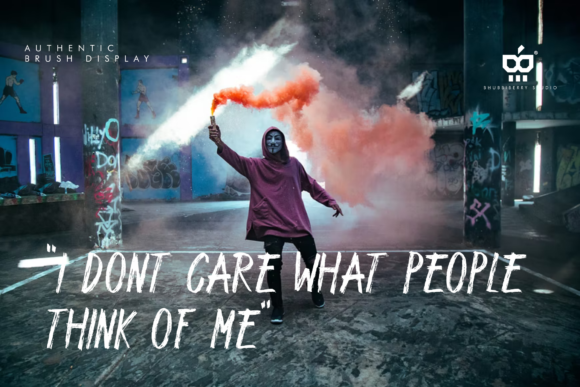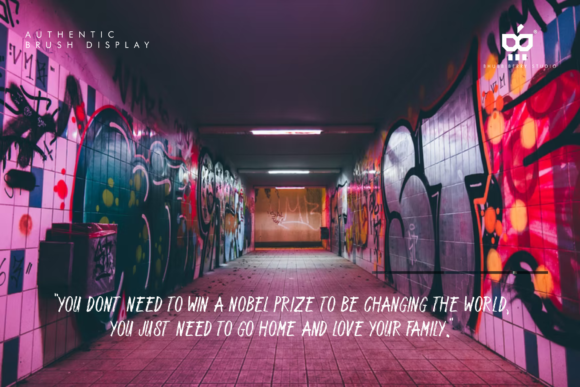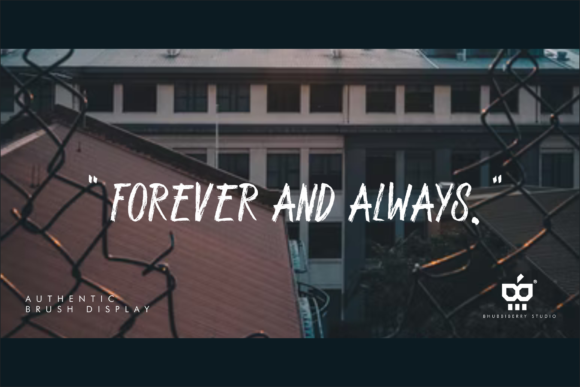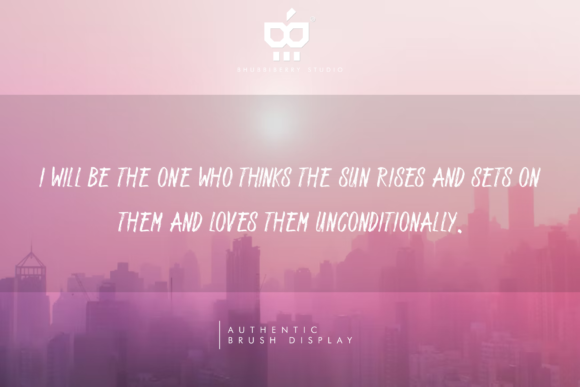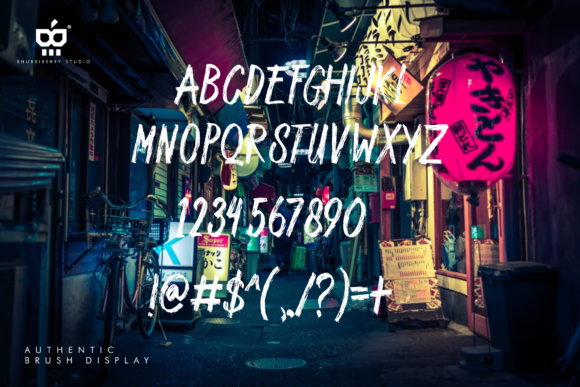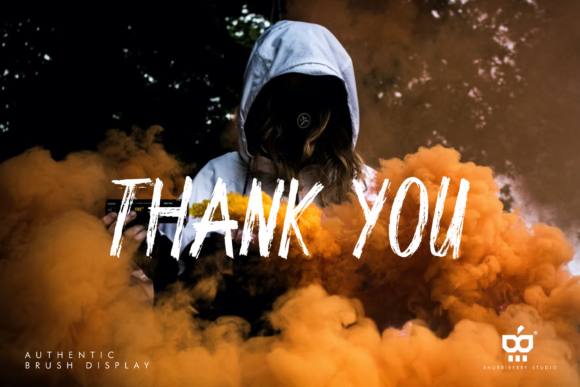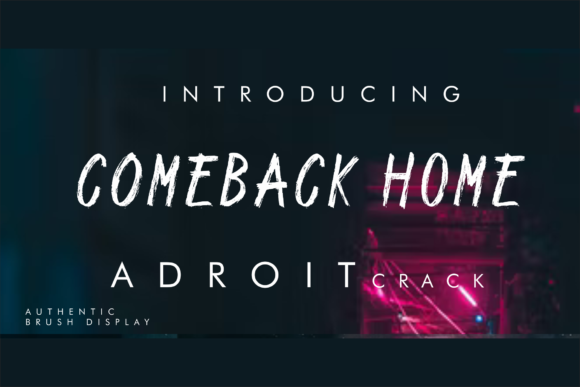
Adroit Crack Font: A Cute and Charming Display Font for Your Designs
Are you looking for a font that can add a touch of whimsy and charm to your designs? Look no further than Adroit Crack Font! This adorable display font is perfect for designers and crafters who want to add a bit of personality to their projects. In this article, we’ll take a closer look at Adroit Crack Font, its features, and how you can use it to brighten up your designs.
What is Adroit Crack Font?
Adroit Crack Font is a cute and charming display font that is sure to capture your heart. Its whimsical and quirky design makes it perfect for a variety of design projects, from posters and flyers to social media graphics and craft projects. The font’s unique and playful style will add a touch of personality to your designs and make them stand out from the crowd.
Key Features of Adroit Crack Font
So, what makes Adroit Crack Font so special? Here are some of its key features:
• Cute and charming design: Adroit Crack Font has a unique and playful design that is sure to brighten up your designs.
• Whimsical and quirky: This font has a whimsical and quirky style that will add a touch of personality to your projects.
• Display font: Adroit Crack Font is a display font, making it perfect for headlines, titles, and other display text.
How to Use Adroit Crack Font
Using Adroit Crack Font is easy! Here are a few ways you can use this font in your designs:
• Posters and flyers: Add Adroit Crack Font to your posters and flyers to make them stand out from the crowd.
• Social media graphics: Use Adroit Crack Font to create eye-catching social media graphics that will grab your followers’ attention.
• Craft projects: Add Adroit Crack Font to your craft projects, such as handmade cards and gift tags, to give them a personal touch.
• Branding and packaging: Use Adroit Crack Font to create unique and memorable branding and packaging for your business.
Why Choose Adroit Crack Font?
So, why should you choose Adroit Crack Font for your designs? Here are a few reasons:
• Unique and playful design: Adroit Crack Font has a unique and playful design that will add a touch of personality to your designs.
• Versatile: Adroit Crack Font can be used in a variety of design projects, from posters and flyers to social media graphics and craft projects.
Tips for Using Adroit Crack Font
Here are a few tips for using Adroit Crack Font in your designs:
• Use it sparingly: Adroit Crack Font is a display font, so it’s best to use it sparingly to make a big impact.
• Pair it with other fonts: Pair Adroit Crack Font with other fonts to create a unique and interesting design.
• Experiment with colors: Experiment with different colors to find the perfect combination for your design.
Adroit Crack Font is a cute and charming display font that is sure to brighten up your designs. Its whimsical and quirky design makes it perfect for a variety of design projects, from posters and flyers to social media graphics and craft projects. With its easy-to-use design and versatile style, Adroit Crack Font is a great addition to any designer’s toolkit. So why not give it a try and see the difference it can make in your designs?